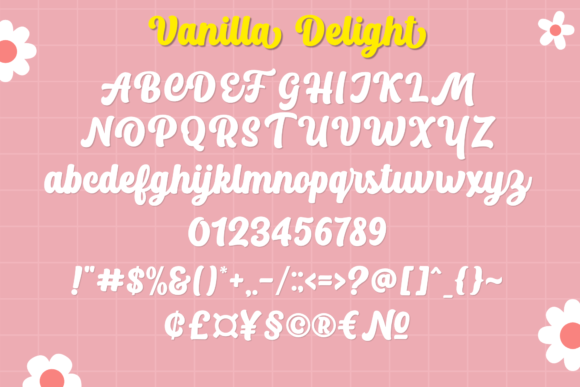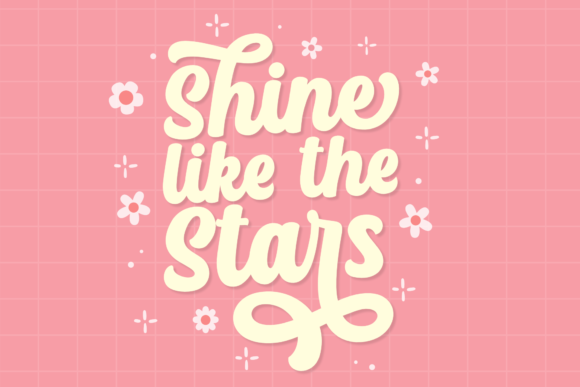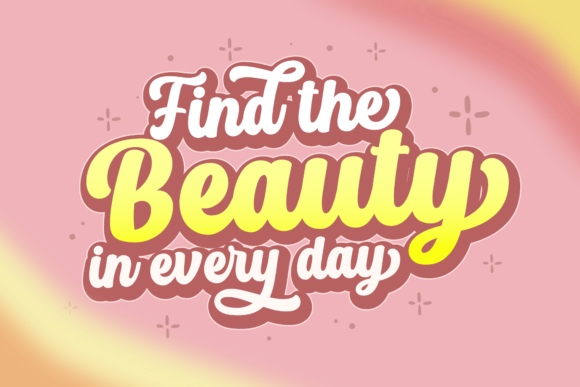
About Vanilla Delight Font
“Vanilla Delight” is a script font with a bold and retro style, characterized by its cool and flowing appearance. This font stands out with its beautiful and well-balanced characters, making it a suitable match for a diverse array of designs. Its versatility ensures it can seamlessly adapt to a wide range of creative projects.
The font’s allure lies in its bold retro design, combined with a flowing flow that adds an element of sophistication and dynamism to your designs. The carefully balanced characters contribute to an overall aesthetic that is visually appealing and engaging.
“Vanilla Delight” thrives in various creative scenarios, making it a great choice for enhancing visual communication. Whether used for logos, branding, or other design applications, its adaptability shines through.
The PUA encoding feature of this font is an added advantage, providing easy access to its full range of glyphs and swashes. This encoding empowers designers to explore various design variations and decorative elements, amplifying the font’s creative potential.
In summary, “Vanilla Delight” is a script font that merges boldness with a retro vibe, resulting in a cool and flowing typeface. Its adaptability and the convenience of PUA encoding make it a valuable tool for designers seeking to add a touch of retro sophistication to their creations.